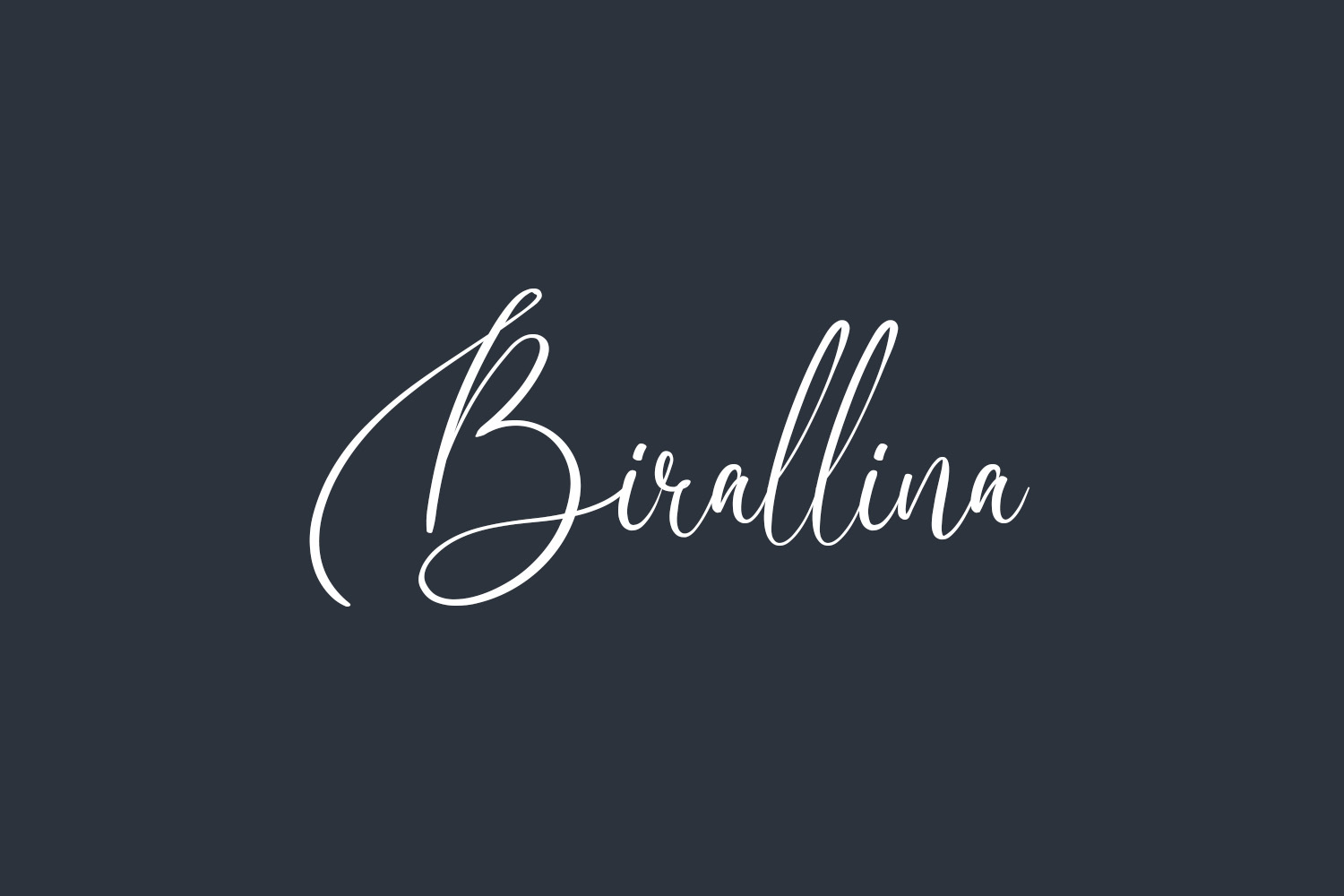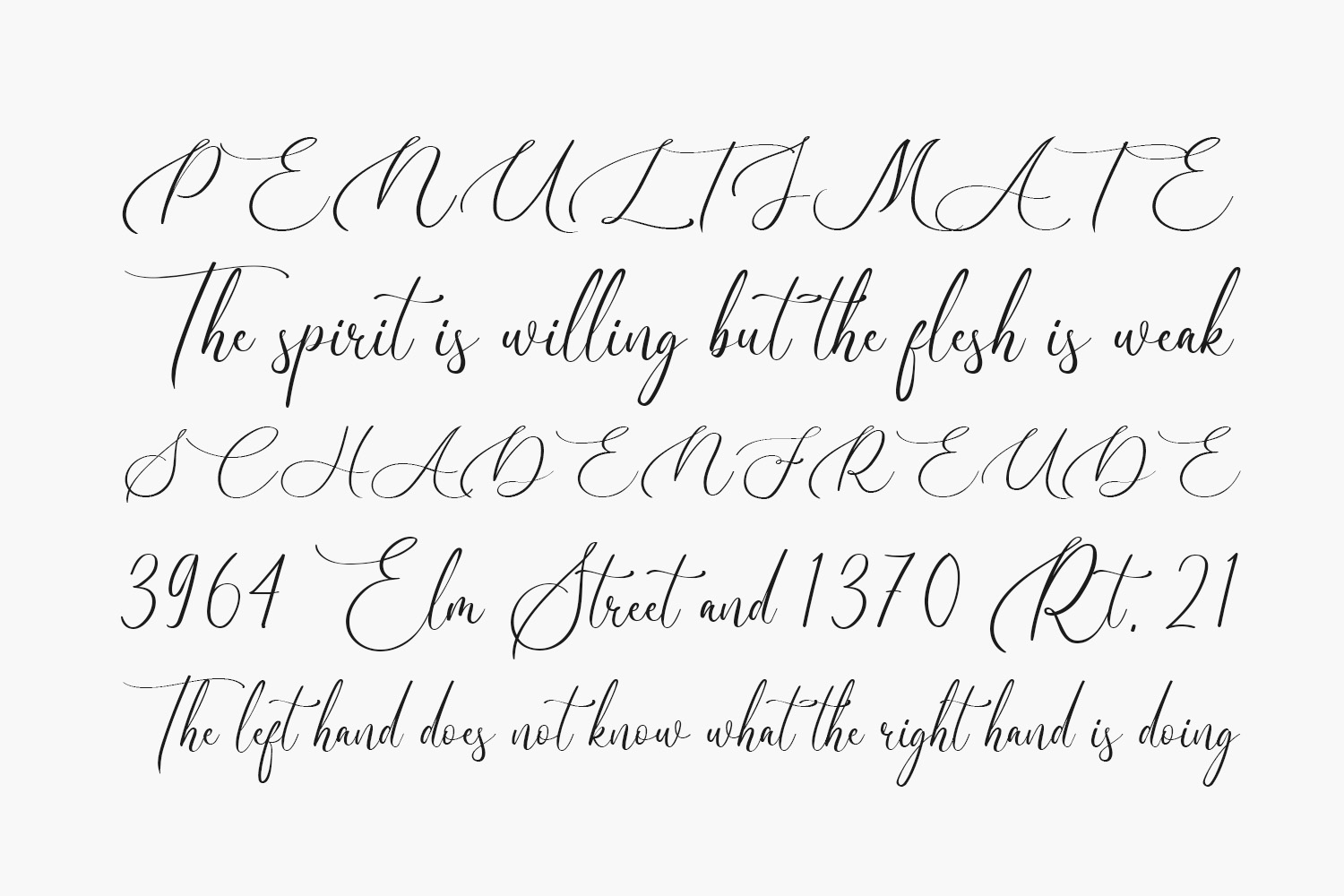
Birallina Free Font is a stunning handwritten font with a bold twist. It will turn any design project into a true standout. Birallina Free Font was designed by Bangkit Tri Setiadi and is free for personal use only. Please purchase the full version for commercial use.